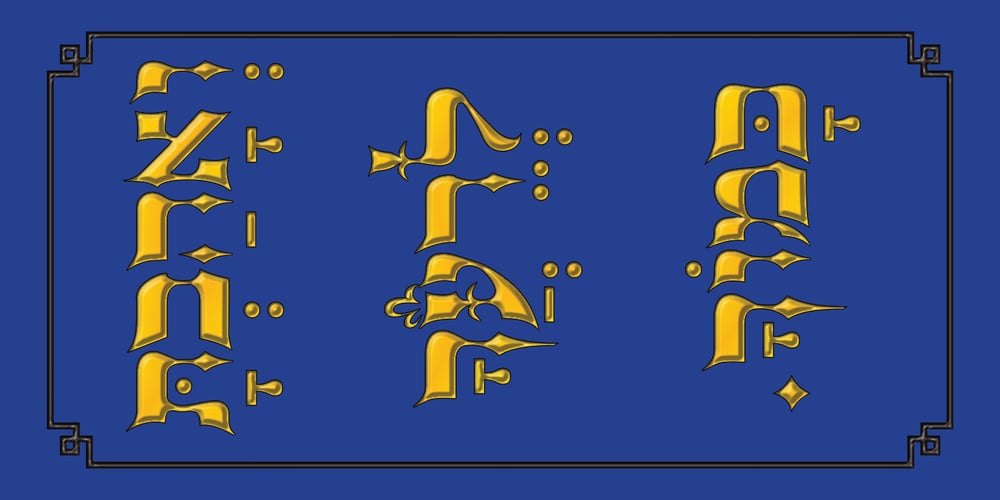
Hebrew Rose Pro
Hebrew Rose Pro font
Hebrew Rose Pro Font Family was designed by Sami Artur Mandelbaum and published by Samtype. Hebrew Rose Pro contains 1 styles and family package options. This beautiful hebrew swash font is for book covers, poster, titles and small texts.